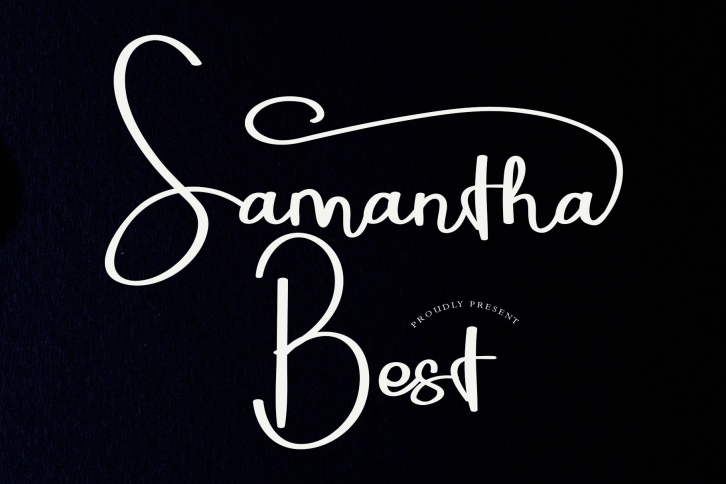
Samantha Best is an ageless and priceless script font carefully created with a touch of delicacy. Whether you’re looking for fonts for Instagram or calligraphy scripts for DIY projects, this font will turn any creative idea into a true piece of art!